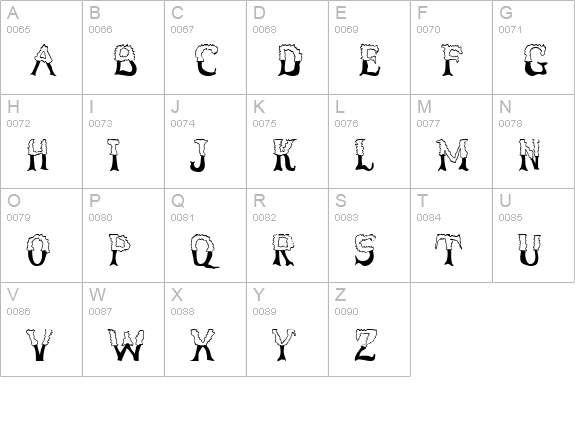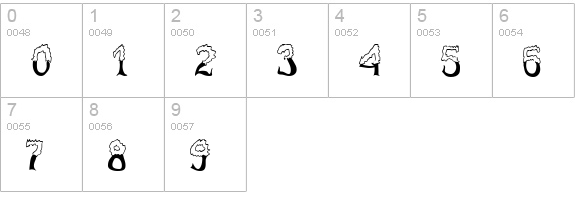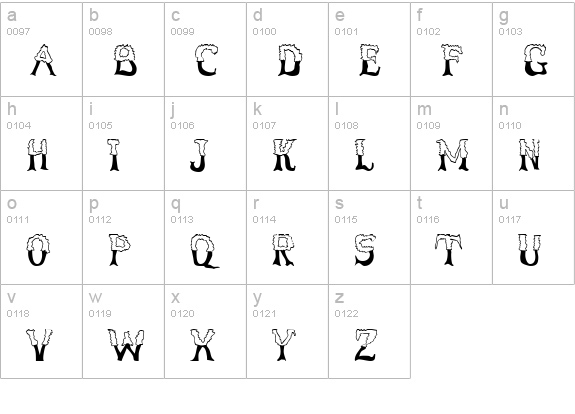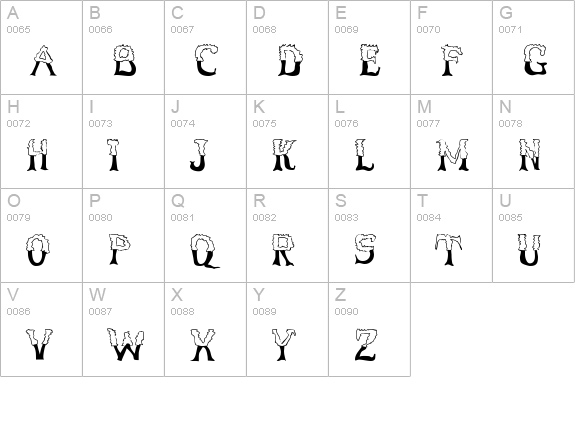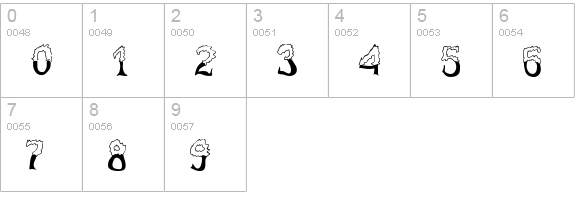
ShadyCharacters Font Details
Introducing ShadyCharacters font, a stunning and versatile typeface that will add a touch of intrigue and sophistication to your designs. With its unique blend of elegance and edginess, ShadyCharacters is the perfect choice for projects seeking to make a bold statement. This font features a wide range of captivating characters, each meticulously crafted to exude a sense of mystery and allure. From sleek and slender letterforms to intricate and elaborate details, every stroke of ShadyCharacters captures attention and leaves a lasting impression. But what sets ShadyCharacters apart is not just its captivating design, but also its accessibility. We are excited to announce that ShadyCharacters is freely available to download at FontsMarket.com. Yes, you read that right – this extraordinary font can be yours at no cost. Whether you're a graphic designer, a creative professional, or simply someone with a passion for typography, ShadyCharacters offers endless possibilities. Use it to elevate your logos, headlines, posters, invitations, or any other project that craves a touch of sophistication and intrigue. Unleash your creativity and let ShadyCharacters guide you towards creating visually stunning and captivating designs. Download this incredible font for free at FontsMarket.com and discover the power of ShadyCharacters today.